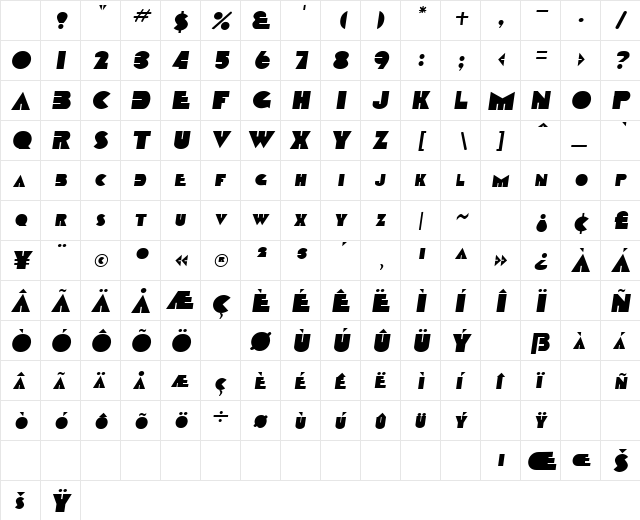
Devotion is a composed and adaptable typeface that performs quietly and consistently across a wide range of design contexts. The slanted form adds forward momentum and visual energy.
Pro Tip: Use Devotion for emphasis, pull quotes, and subheadings where its slanted energy can add rhythm to the layout.